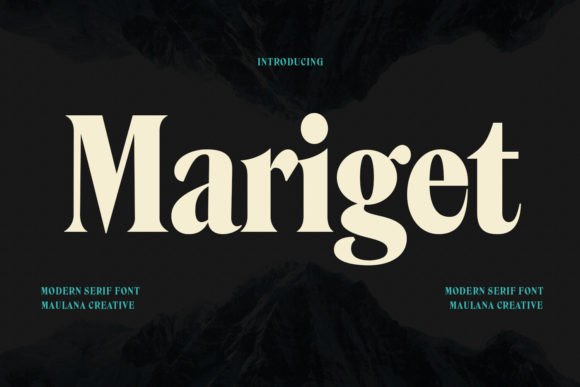
Welcome to the world of Mariget: The Bold and Beautiful Serif Display Font That Will Make Your Designs Shine.
Mariget is not just a font; it's an artistic expression that combines boldness, elegance, and a touch of playfulness. Its high contrast and condensed design create a captivating visual impact that demands attention. With its bold strokes and fun characters, Mariget is the perfect choice for making a statement in your designs.
Get ready to unleash your creativity with Mariget's rich ligatures and stylistic alternatives. These intricate details add an extra layer of visual interest to your text, making it stand out from the crowd. Whether you're crafting logos, social media posts, movie titles, book titles, or any other design project, Mariget is your go-to font for creating stunning, eye-catching designs.
We didn't stop there. Mariget supports over 100 languages, making it a truly global font that can captivate audiences worldwide. Its versatility extends to a wide range of applications. Use it for logo design, social media, movie titles, book titles, short texts, long texts, and even pair it with script or serif fonts for a harmonious blend of styles.
Mariget is the perfect font for creating stunning work that leaves a lasting impression. Its bold and beautiful design will elevate your designs to new heights. Embrace the power of Mariget and let your creativity soar. Make a statement with Mariget today!